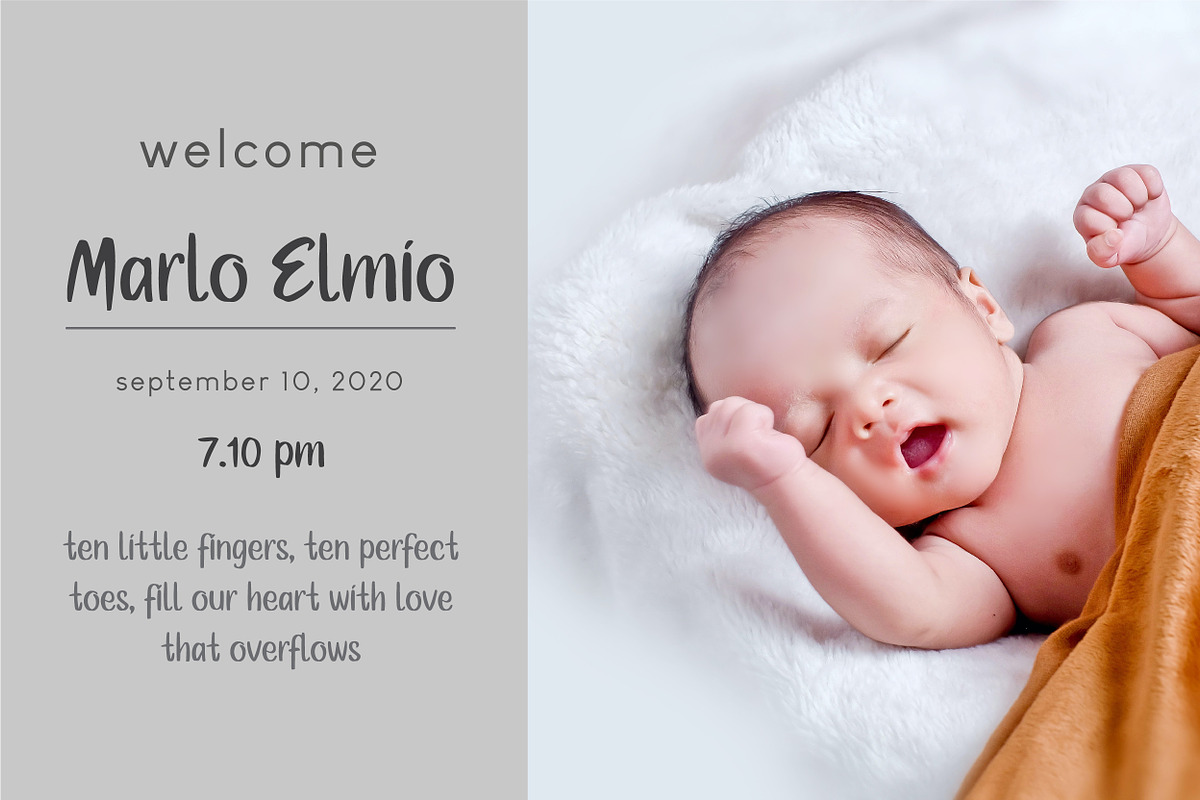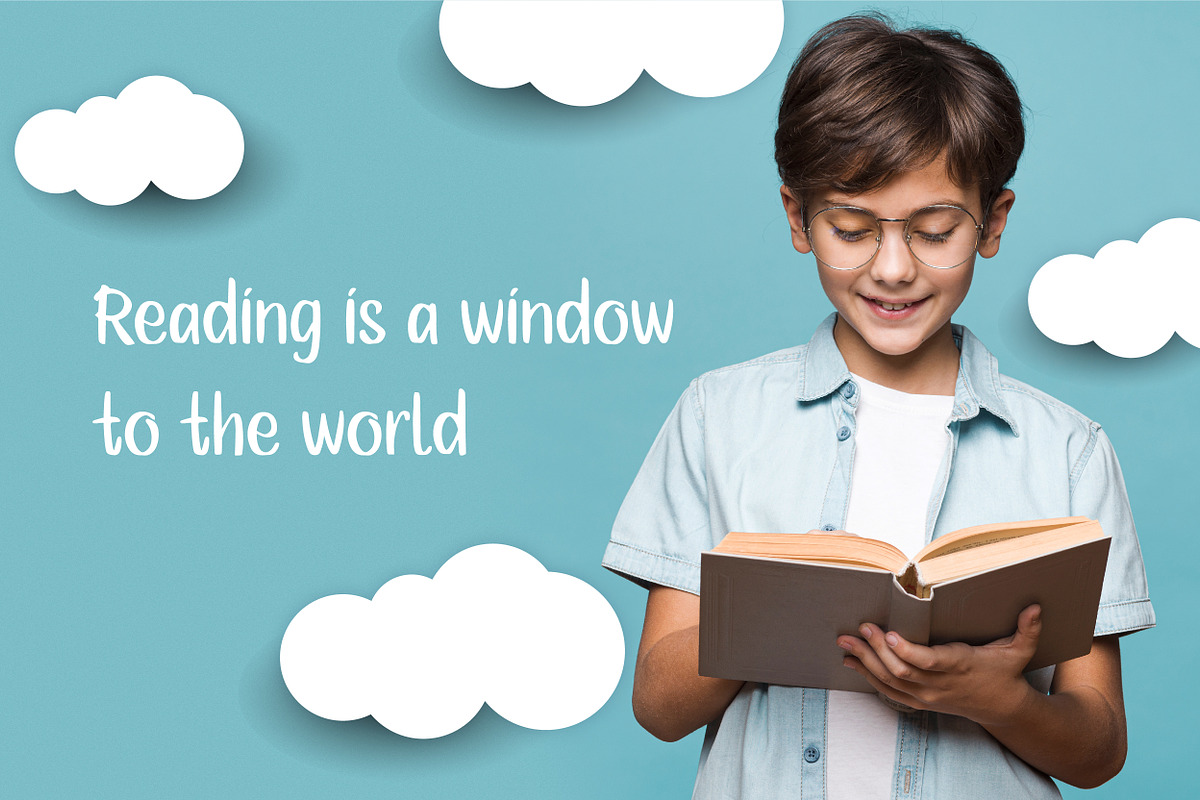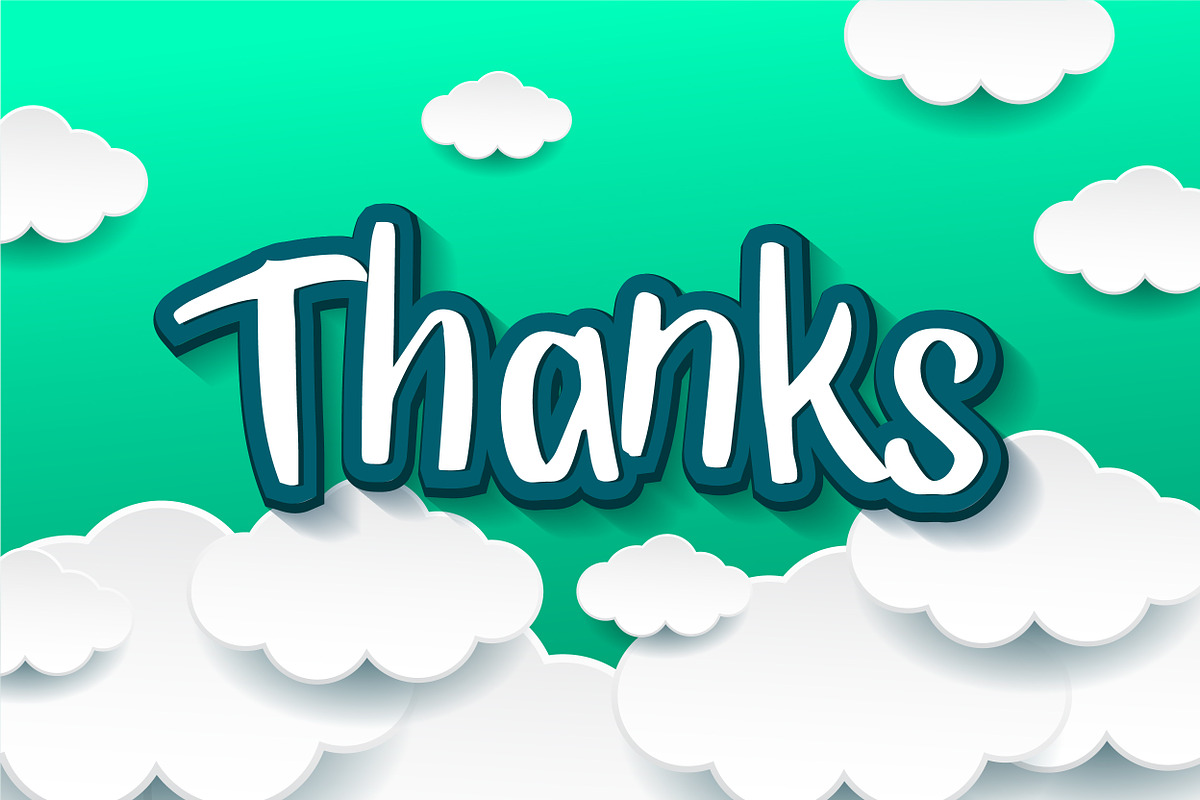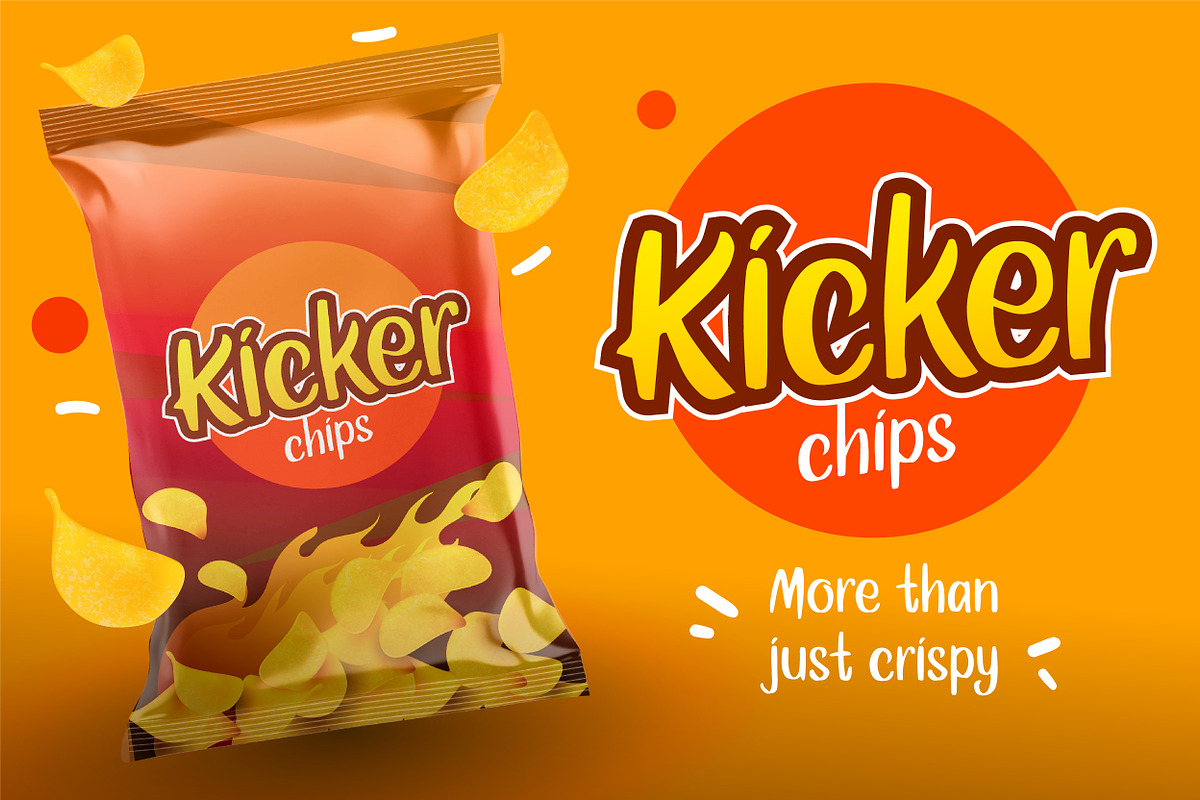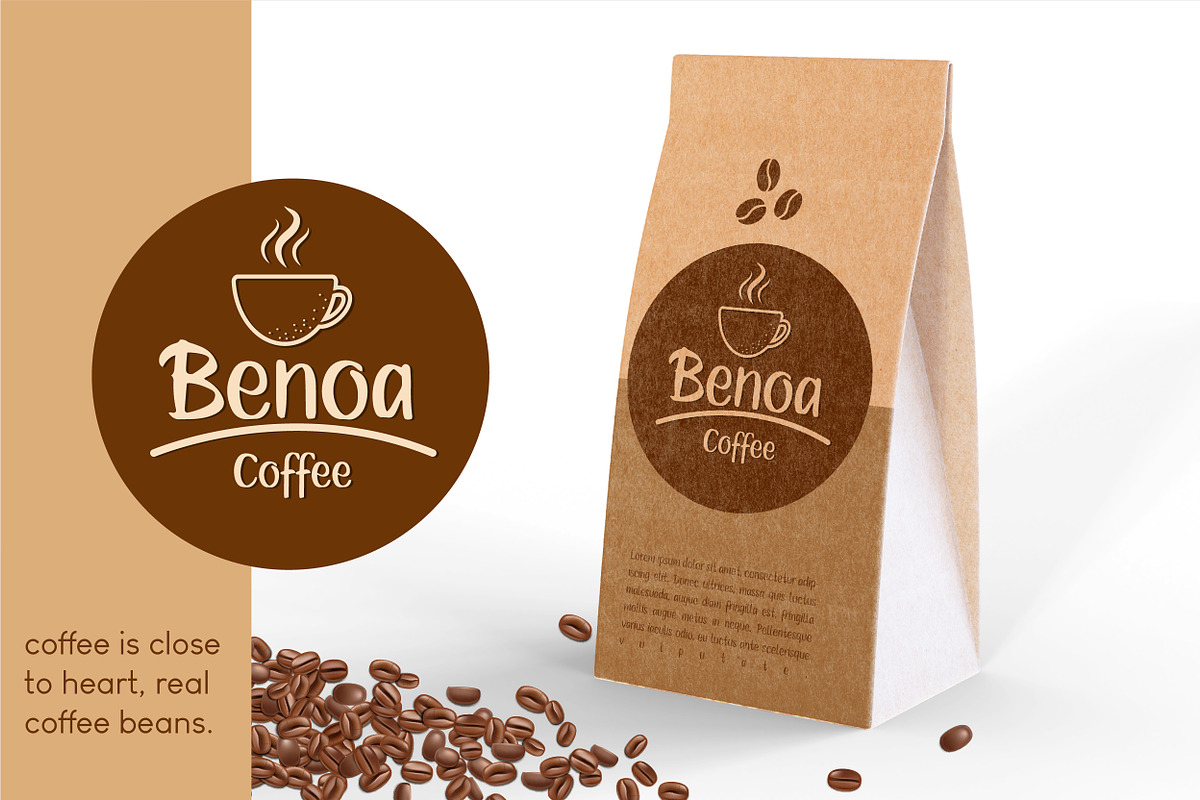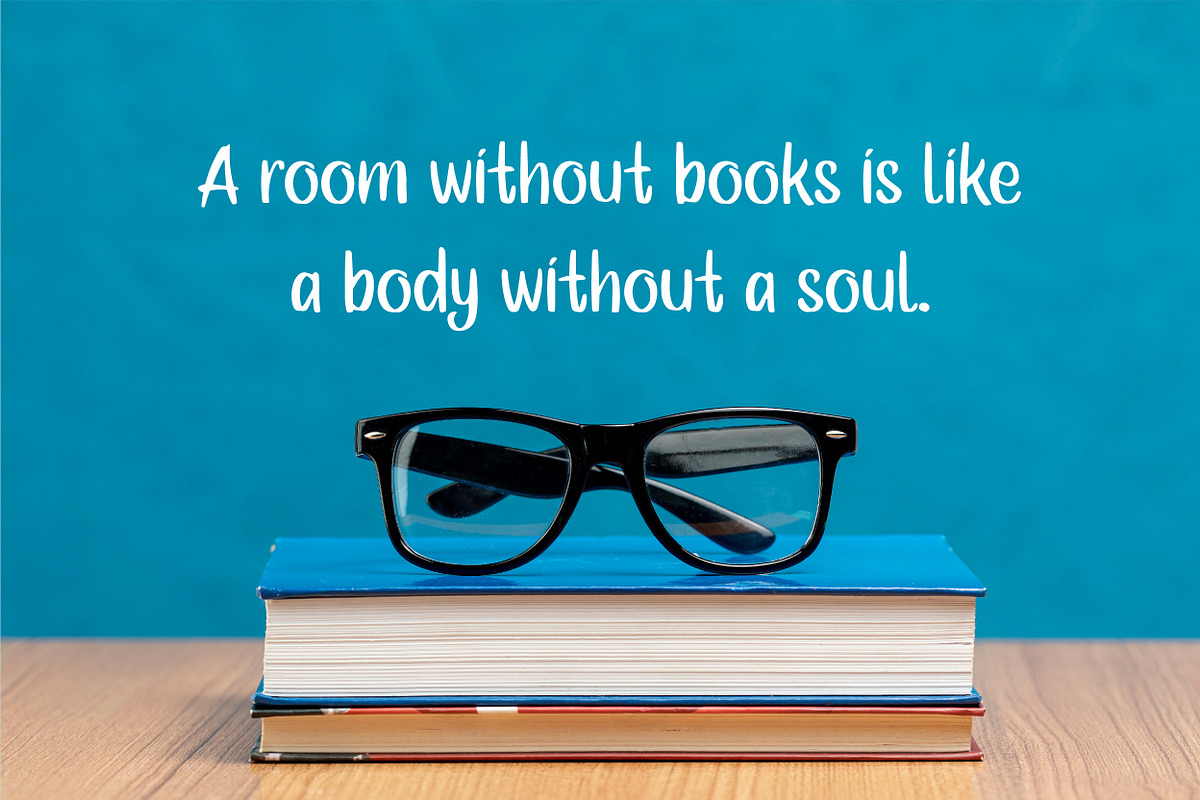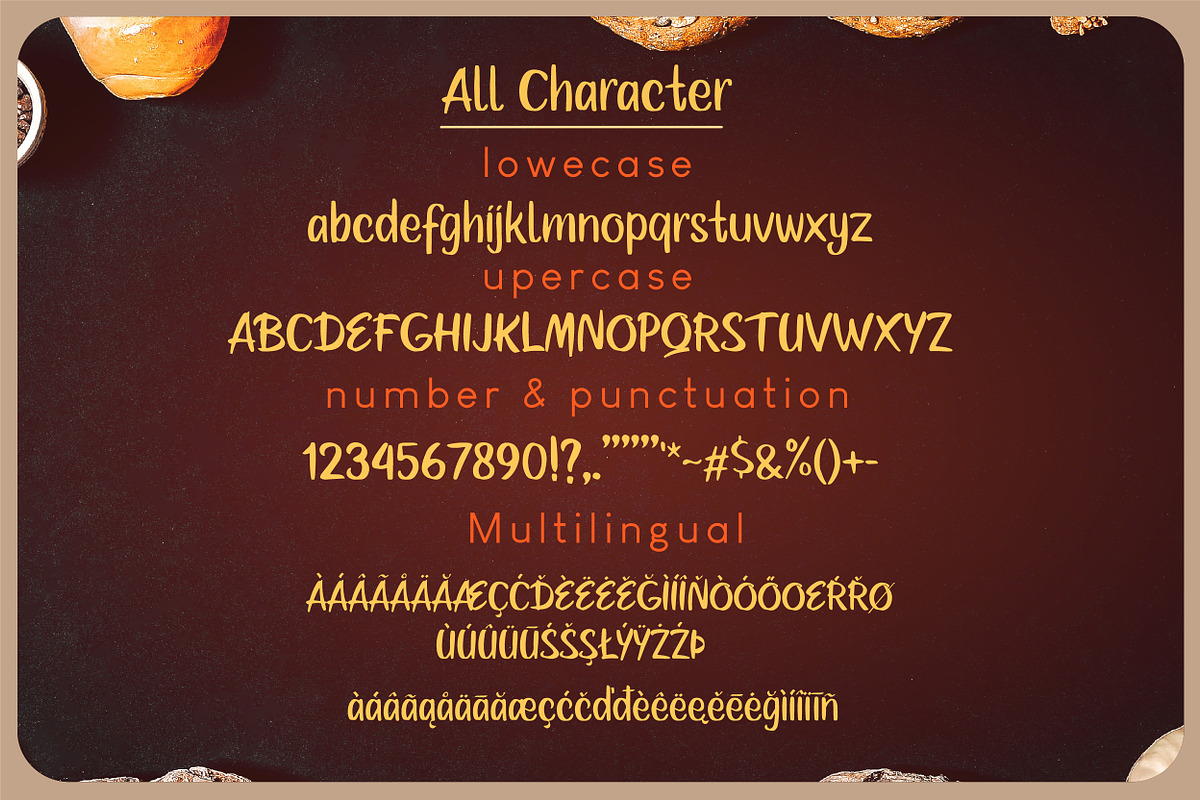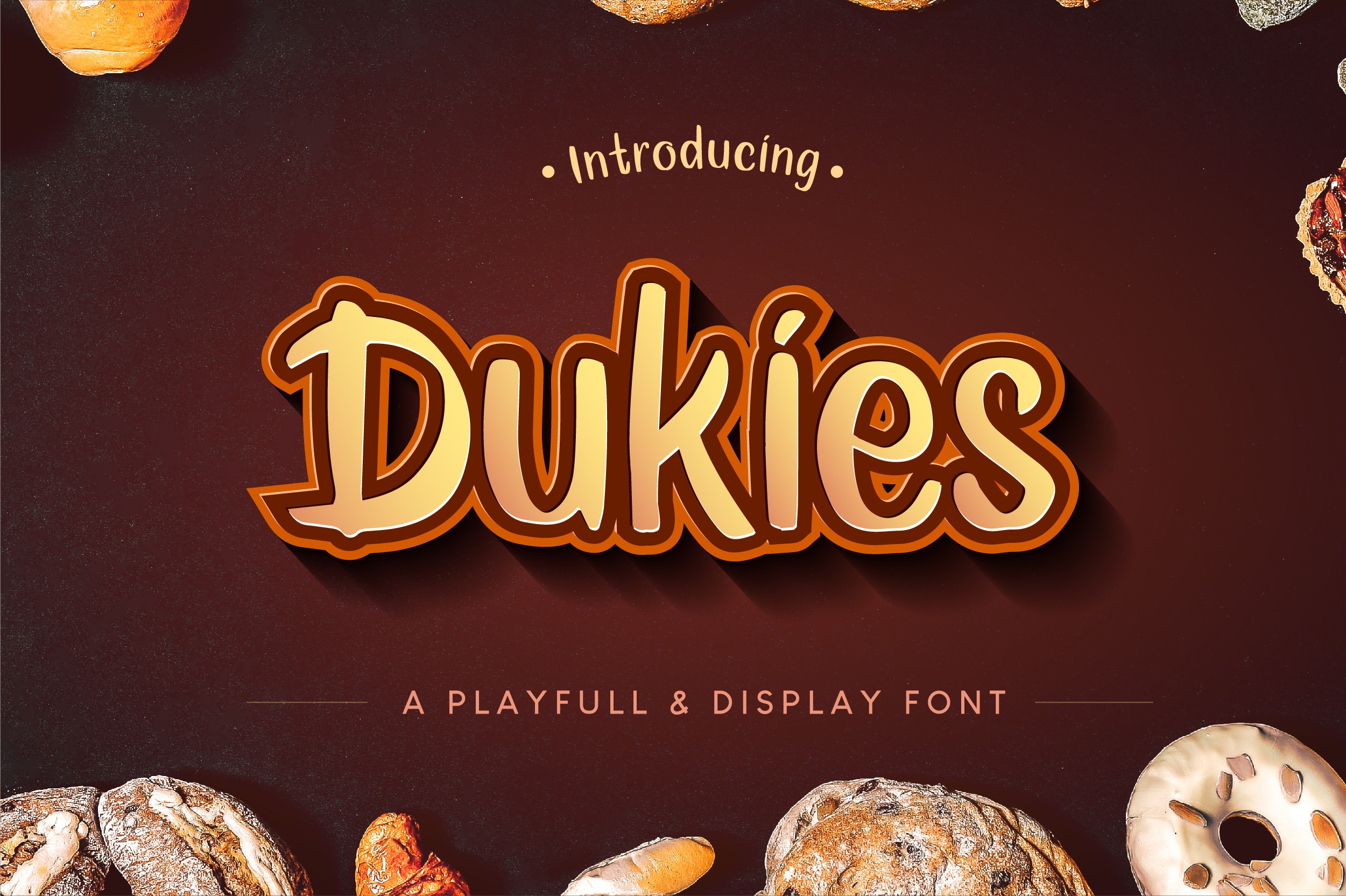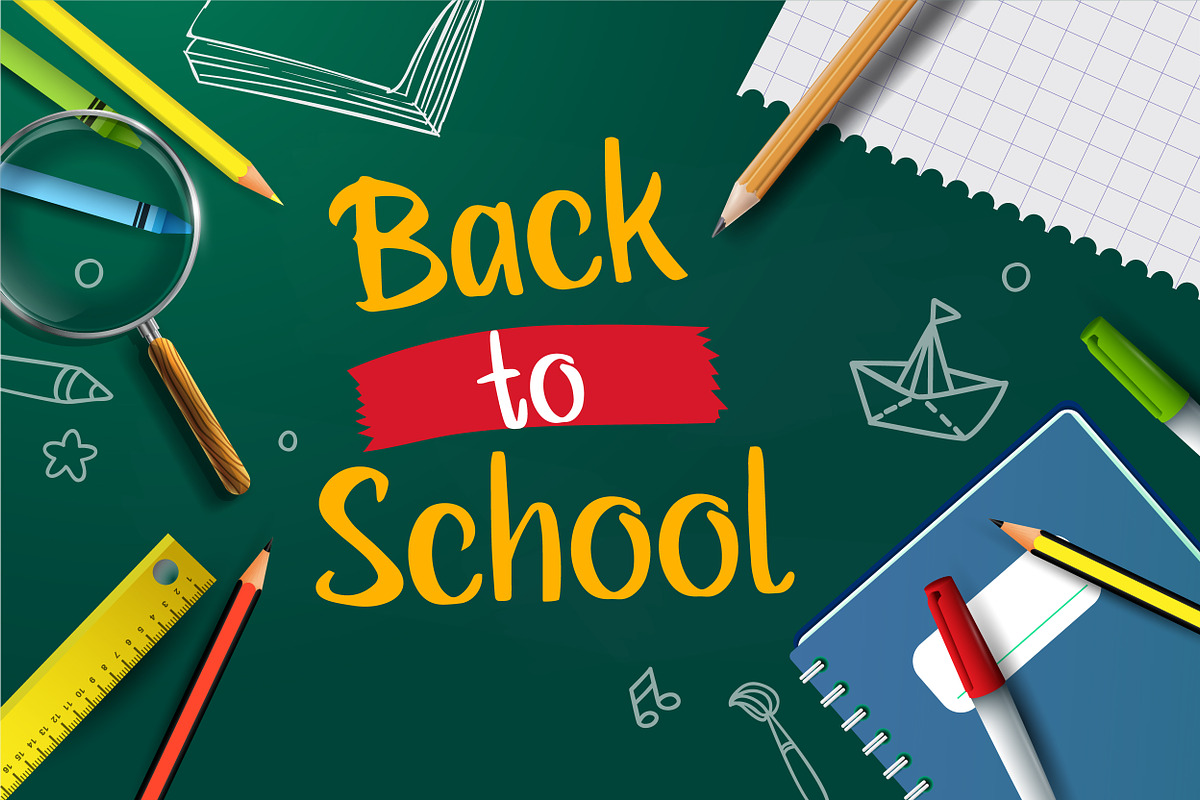
Dukies a Playful and Display font
Introducing of our new product the name is Dukies, this is a cute and playful display font. It will add an incredibly joyful touch to your designs. Add this beautiful display font to each of your creative ideas and notice how it makes them stand out!